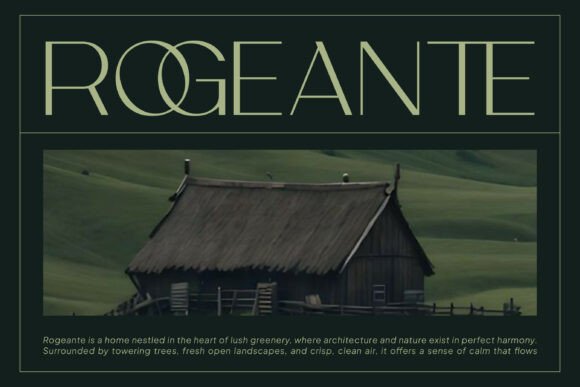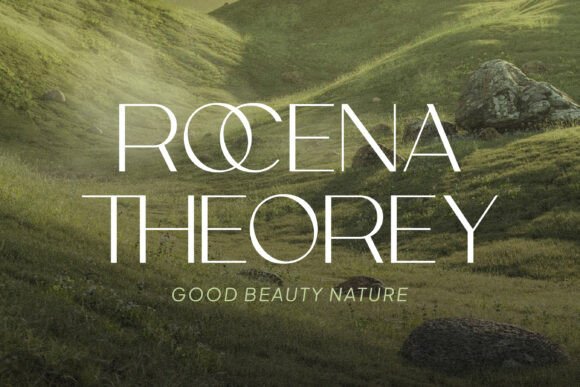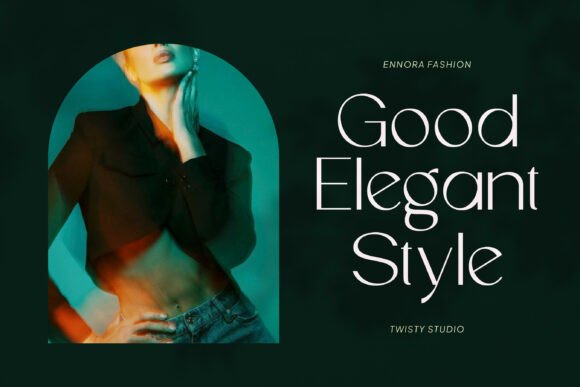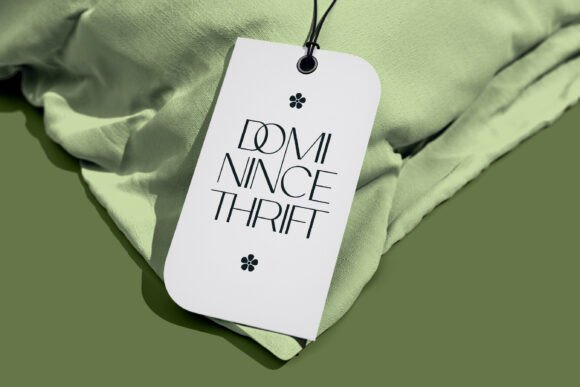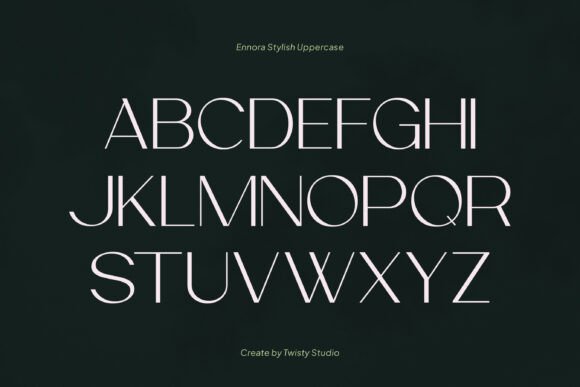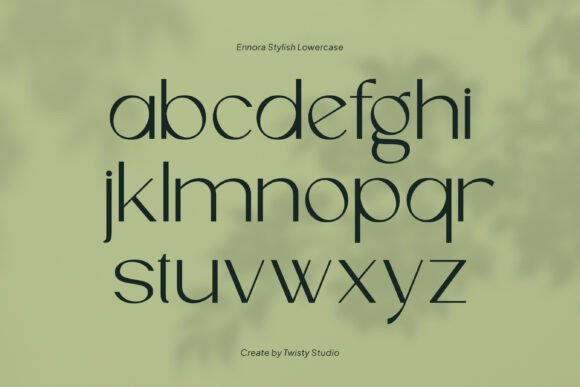
Introduction to Ennora Font
As a designer, you know the thrill of finding that perfect font to elevate your creative project. Imagine the moment when you finally stumble upon a typeface that exudes elegance, sophistication, and a touch of modernity. For many, that moment comes with the discovery of the Ennora Font – a refined luxury minimalist sans typeface designed to deliver a polished look that feels both contemporary and timeless.
Whether you’re working on a high-end branding project or a premium packaging design, the Ennora Font is a valuable resource that can take your design to the next level. With its clean lines, balanced proportions, and subtle modern details, this font creates a sense of visual harmony that’s perfect for designers who value clarity and space.
Key Features of Ennora Font
- High-quality design resource ideal for creative projects, including logos, branding, and digital art.
- Features a transparent background, allowing for effortless layering and customization in graphic design software.
- Includes a range of characters, including uppercase and lowercase letters, numerals, and special characters, to cater to diverse design needs.
- Designed with a modern and sleek aesthetic, making it perfect for contemporary design projects.
- Comes with a comprehensive character map, ensuring that designers can easily access and use all the available characters and glyphs.
Honest Review: Ennora Font
As a designer, I’m always on the lookout for high-quality design resources that can elevate my creative projects. The Ennora Font is one such resource that caught my attention. Here’s my honest review.
- Unique and elegant design: The Ennora Font has a distinctive look that sets it apart from other fonts.
- Limited language support: The Ennora Font may not support all languages, which could be a limitation for global design projects.
Overall, I’m impressed with the Ennora Font’s unique design and high-quality graphics. While it may have some limitations, it’s an excellent addition to any design resource library, especially for creative projects that require a distinctive look. With its free download and high-resolution files, it’s definitely worth checking out.
Tips for Getting the Most Out of Ennora Font
Experiment with different font sizes and styles to achieve the desired effect. Use the Ennora Font in combination with other design elements to create a visually appealing design. Consider using the font with a transparent background to add an extra layer of sophistication.
Common Use Cases for Ennora Font
The Ennora Font is suitable for a variety of creative projects, including graphic design, digital marketing, and branding. Its high-quality design and transparent background make it an ideal choice for modern and sleek designs.